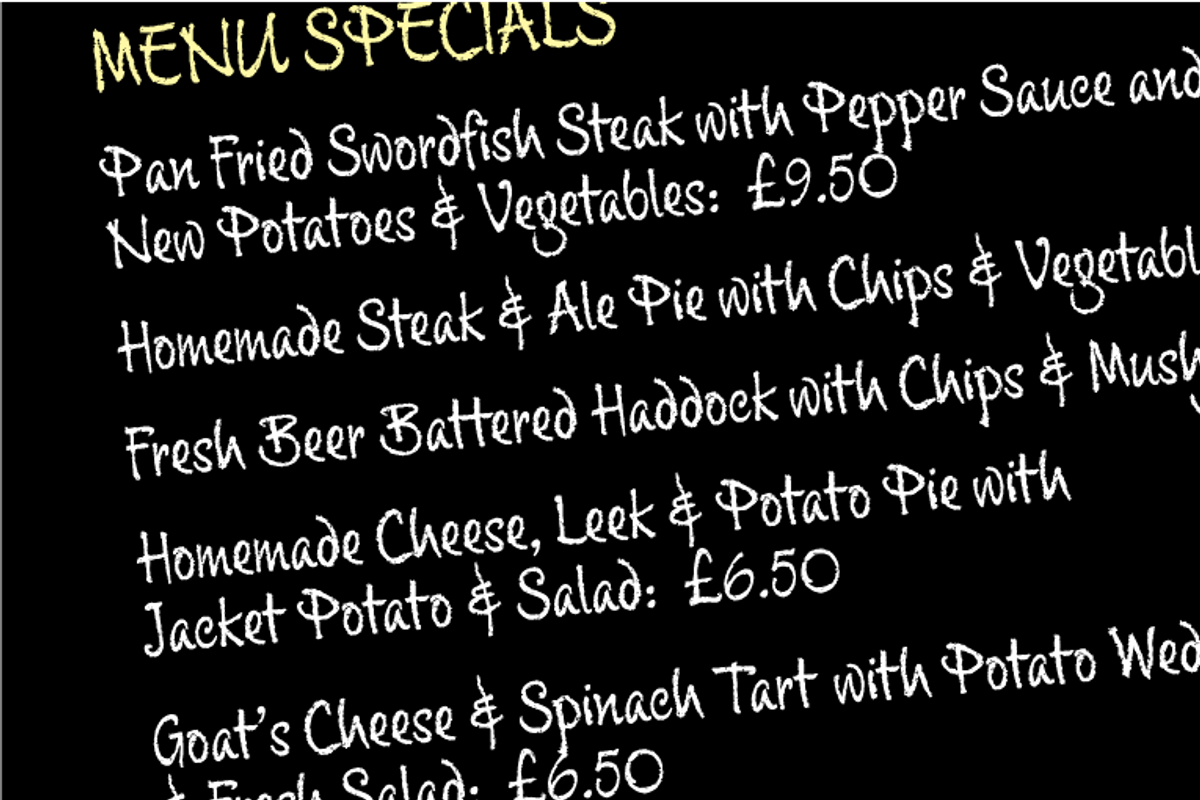
Chalky
Chalky is a hand-drawn font designed to resemble chalk lettering on a blackboard. Its condensed form allows for longer text settings while maintaining readability. The font's distressed and high-contrast appearance gives it a playful, handcrafted feel.